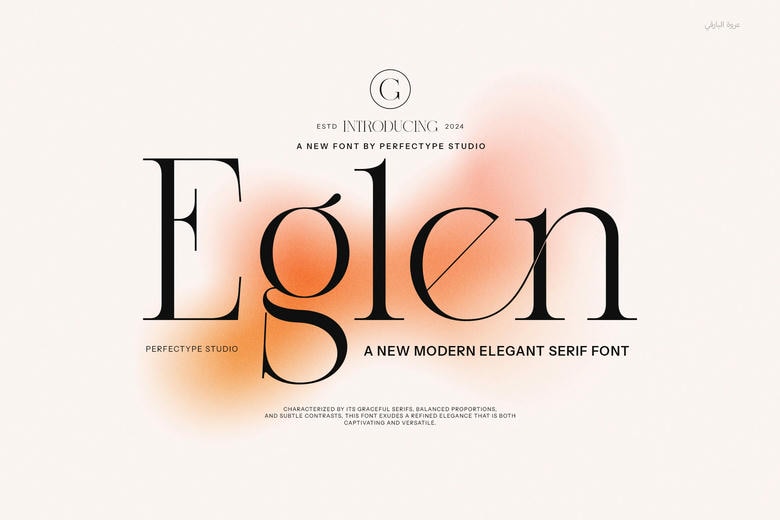
Eglen Font
Eglen is an elegant and classy font of the serif family great for any branding and logo works. Designed specifically for the luxurious and elegant purposes, this font proves useful for a variety of projektas. It has awesome and special ligatures and there are fundamentals, alternates option which offers flexibility and creativity.
It is suitable for branding logo, social media post, advertisement, label, product packaging, photography, wedding, watermark, invitation, stationery and etc. It provides good legibility and contributes to the luxurious look of a project.
Eglen Serif Font